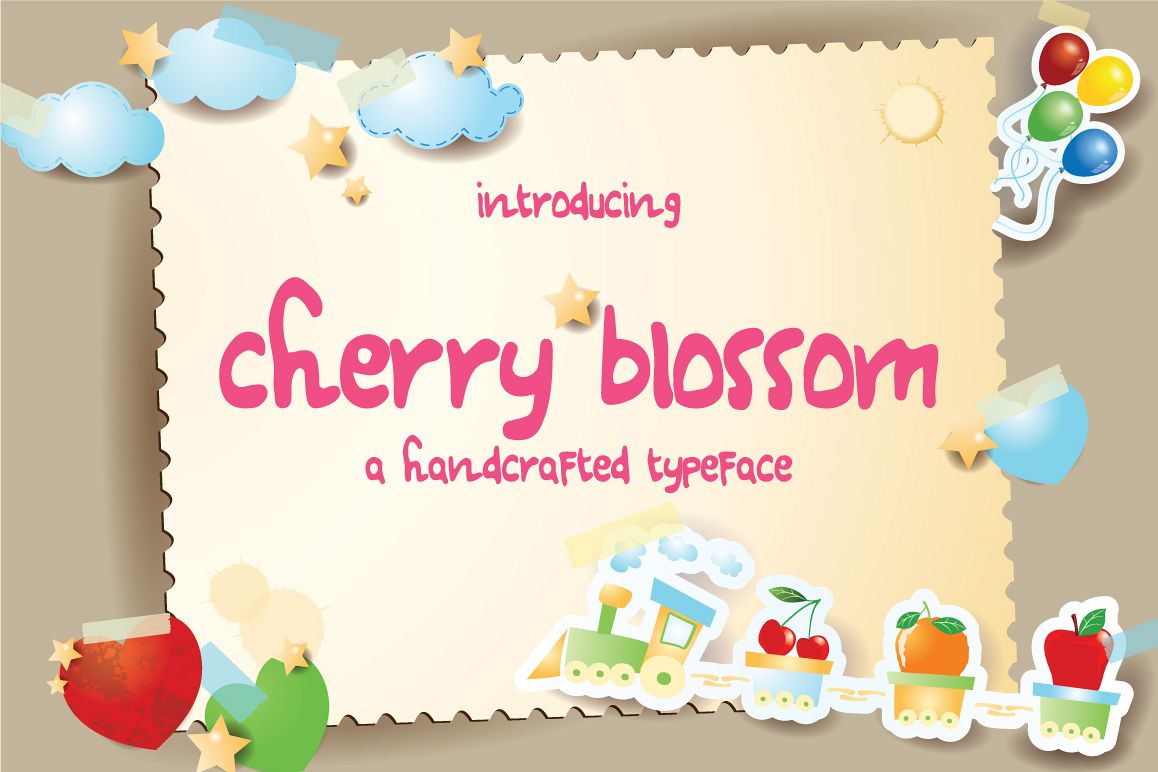
Cherry Blossom Typeface
Introducing "Cherry Blossom Handcrafted Typeface" Can be used for various purposes namely branding, headings, logos, wedding invitations, t-shirts, letterheads, labels, news, posters, badges etc. Product Content: Cherry Blossom.otf Cherry Blossom.ttf Webfont Features: Uppercase Lowercase Number Use a program that supports OpenType features such as Adobe Illustrator CS, Adobe Indesign & CorelDraw X6-X7 to access the full features of this typeface. How-to pdf included in the package. Feel free to contact me for additional supports. Personal and Commercial use is permitted